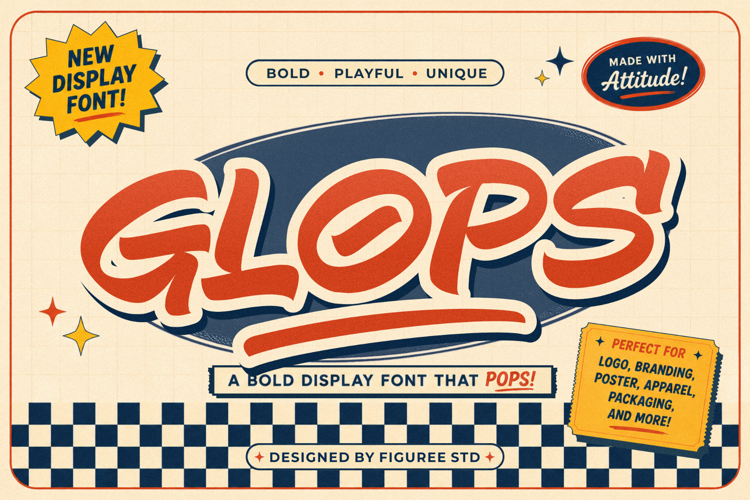
Glops - Retro Brush Font
Introducing Glops – Retro Brush Font, a bold all-caps typeface inspired by classic sign painting and clean brush lettering styles. Designed with strong strokes and natural movement, this font delivers an authentic retro feel while maintaining solid readability for modern creative projects.
With its hand-painted character and vintage-inspired shapes, Glops is suitable for posters, restaurant menus, café signage, packaging, social media graphics, YouTube thumbnails, album artwork, and headline typography. The clean brush style creates a handmade look without appearing rough or overly textured, making it adaptable across both digital and print media.
Every letter in Glops was crafted to create a confident visual presence. The bold brush construction gives your typography a strong rhythm, while the retro-inspired proportions help bring nostalgic energy into your layouts. Whether you are creating promotional graphics or eye-catching titles, this font helps your message stand out clearly.